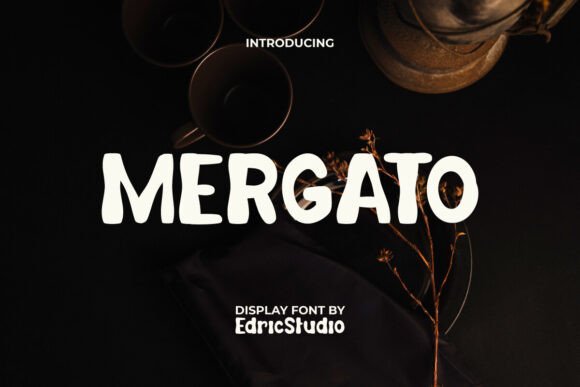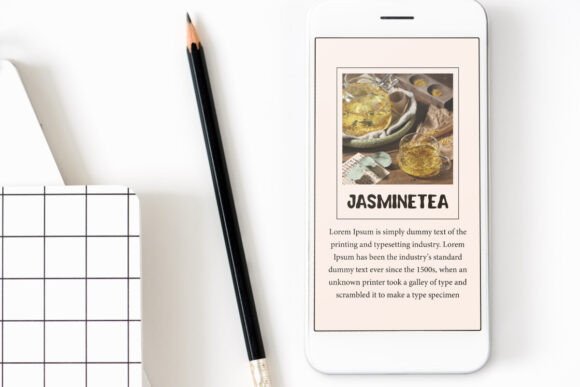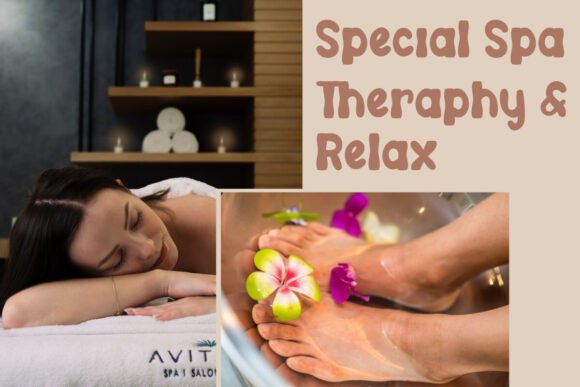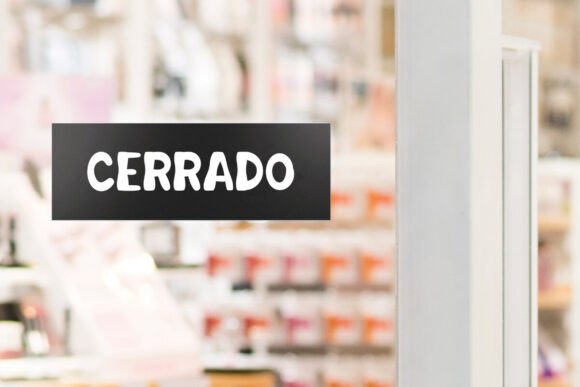
Mergato Font: Playful Display Font for Modern Logo Design & Branding
About the Mergato Font
Explore the possibilities with Mergato Font, a font that offers both beauty and functionality. Mergato Font is an abstract, playful, yet modern display typeface. The letterforms in this font feature wavy shapes reminiscent of clay in the molding process. It is perfect for a wide variety of businesses, including accessories, beauty products, cafés, entertainment, fashion, children’s products, photography, printing, publishing, travel, writing, and many more.
Mergato Font includes a full set of uppercase and lowercase basic characters, numbers, a wide range of punctuation marks, and symbols. Its design is cute and charming, carefully crafted with proper spacing and kerning. Mergato Font is ideal for enhancing any creative project such as brand identity, book covers, custom graphics, invitations, labels, merchandise, packaging, posters, quotes, screen prints, signage, stationery, stickers, titles, websites, and more.
Mergato Font Usage Examples
Mergato Font Example